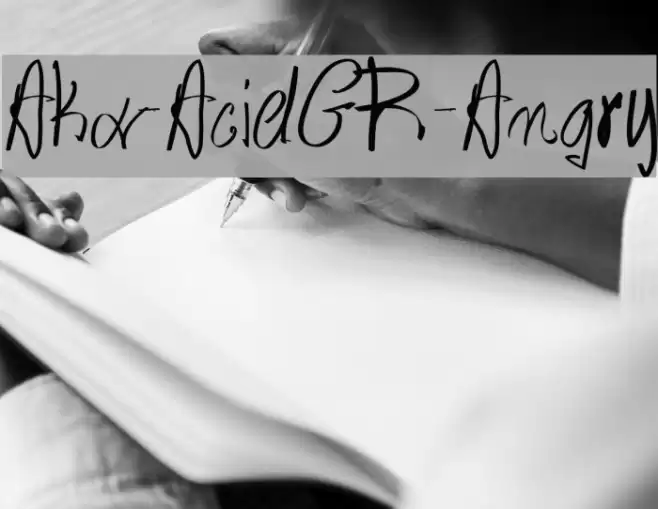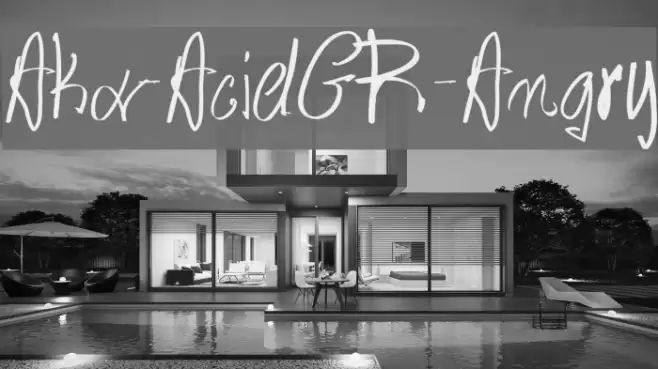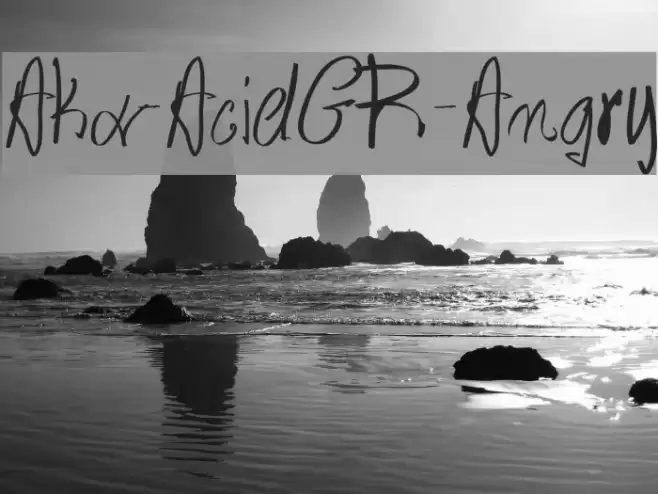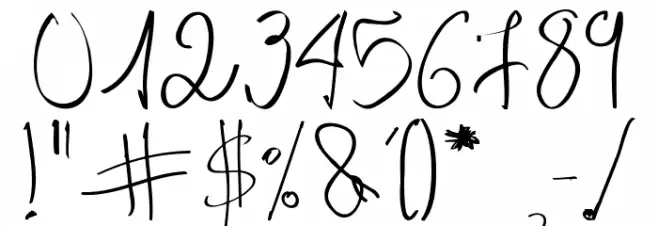
Aka-AcidGR-Angry Font
Aka-AcidGR-Angry Description
This font features an expressive, handwritten style with a dynamic and energetic appearance. The letters are irregular and varied in size, giving a sense of spontaneity and creativity. The strokes are bold and fluid, with a noticeable variation in thickness that adds to the font's lively character. The uppercase and lowercase letters maintain a consistent style, while the numbers and special characters complement the overall design. This font's distinctive personality makes it suitable for projects that require a bold and artistic touch.
A bold, expressive handwritten font with dynamic strokes from Uncategorized fonts.
- Proposed Projects: Ideal for creative projects such as posters, album covers, artistic branding, and personal invitations.
- Use Case: Logos, Headlines, Artistic projects